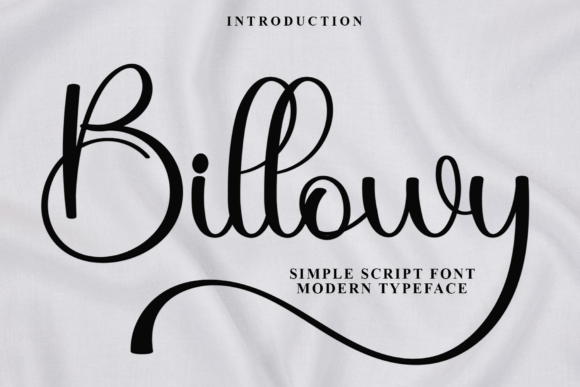
The Billowy Font: A Casual and Creative Companion for Designers
I’ll never forget the time I was working on a project for a client’s birthday party invitation. I had the design concept nailed down, but I just couldn’t find the right font to bring it all together. The client wanted something warm, friendly, and playful, but not too formal. That’s when I stumbled upon the Billowy font. Its round, playful strokes immediately caught my attention, and I knew I had found the perfect fit.
A Personal Review of Billowy
So, what makes Billowy so special? Let’s dive into the good stuff! 🤩
- ✨ Warm and friendly vibe: Billowy’s casual and creative aesthetic makes it perfect for personal projects, invitations, and social media graphics.
- ✅ Easy to read: The font’s clear and playful strokes ensure that your message is conveyed in a relaxed and approachable way.
- 💕 Hand-drawn charm: Billowy’s unique, hand-drawn aesthetic adds a fun and unique touch to any design.
Of course, no font is perfect, and Billowy has a few small quirks to keep in mind:
- ⚠️ Limited use in formal designs: Billowy’s casual nature makes it less suitable for formal or professional projects.
The Story Behind Billowy
Billowy was designed with the intention of creating a font that exudes warmth and friendliness. The designer, inspired by the casual and creative vibe of handmade crafts, aimed to create a font that would bring a personal touch to any design. With its round, playful strokes and charming hand-drawn aesthetic, Billowy has become a popular choice among designers and crafters alike.
- Q: Is Billowy suitable for digital and print designs?
- A: Yes, Billowy is designed to work well in both digital and print designs. Its clear and playful strokes ensure that your message is conveyed effectively across different mediums.